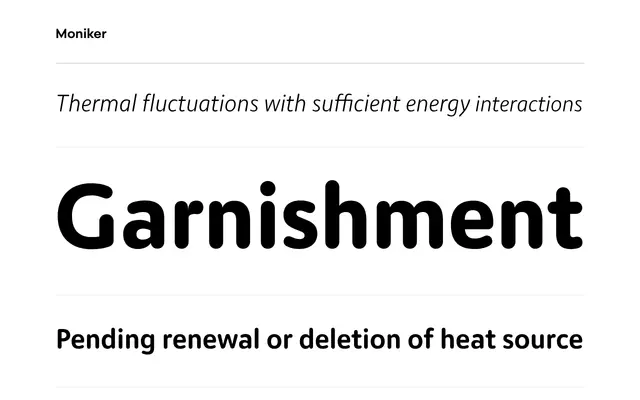
Moniker
Process Type Foundry · Eric Olson · 2017
A rounded sans-serif by Eric Olson that extends the genre's informal warmth into continuous text, tables and wayfinding rather than limiting it to display use.
Released in 2017, Moniker takes the rounded sans tradition and reconfigures it for sustained reading and information design, where such faces rarely venture. Open terminations and a slightly condensed lowercase keep it compact and legible at text sizes, while almost classically proportioned uppercase letters maintain composure in headlines. Five weights with lively matching italics and small caps give it enough range for identity, editorial and signage work.
Moniker draws from the rounded sans-serif tradition of the past five decades, with open terminations and slightly condensed lowercase forms that push the genre toward text utility rather than pure display work.